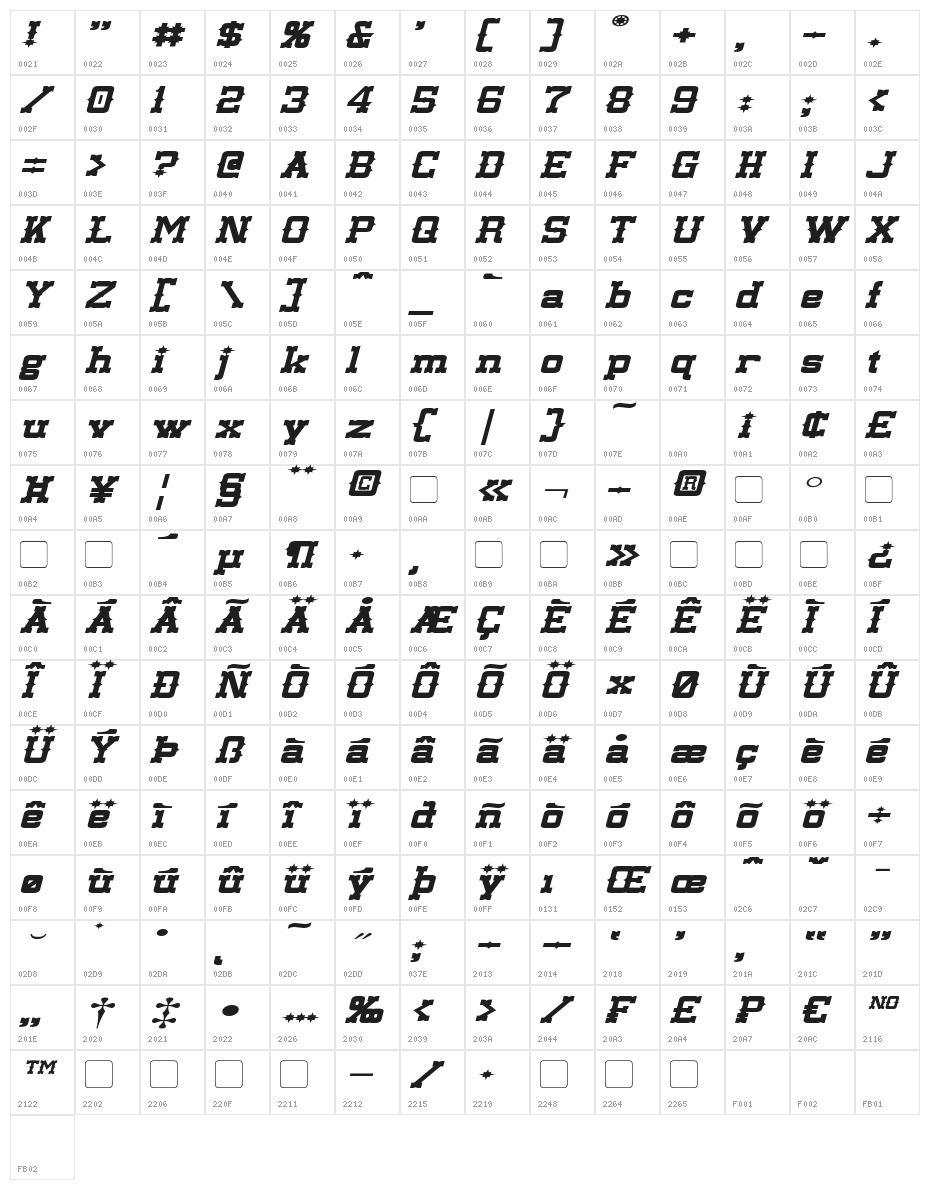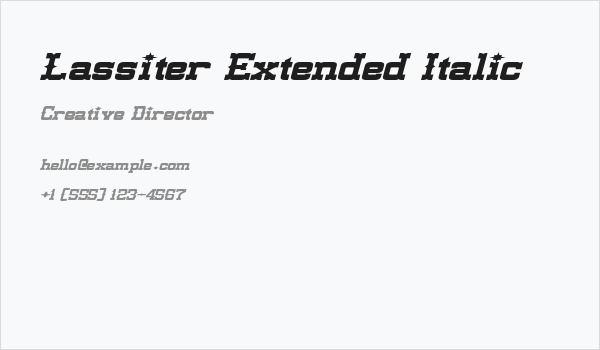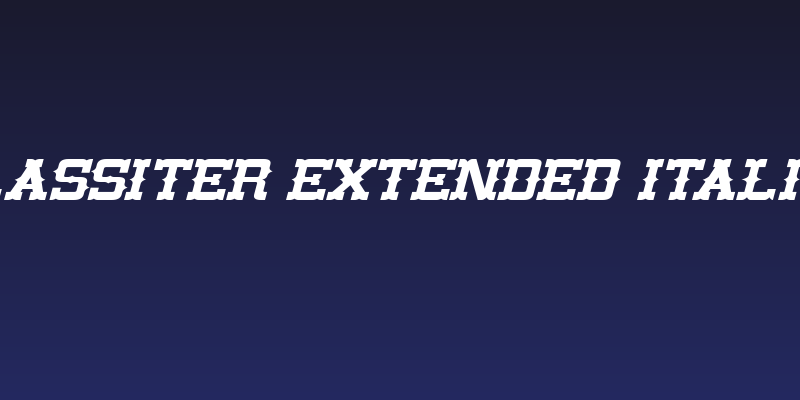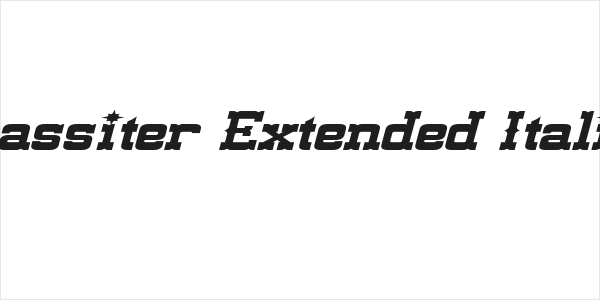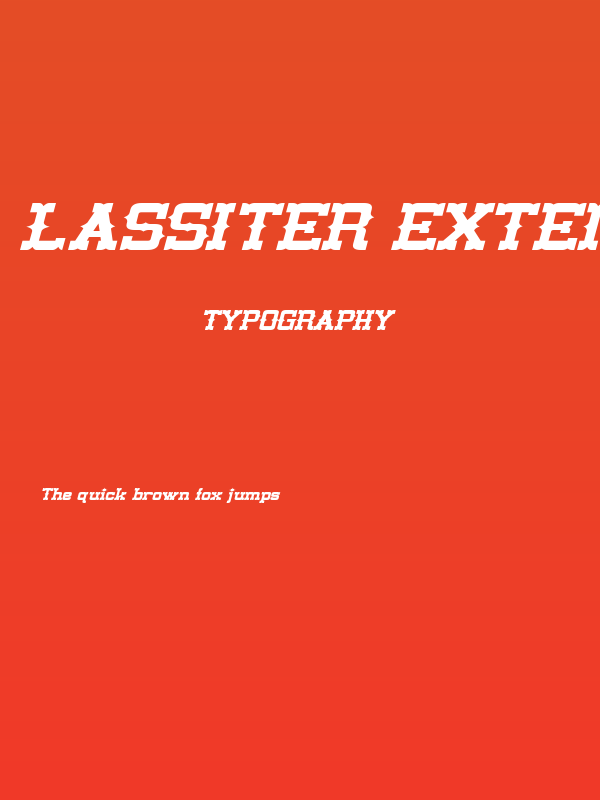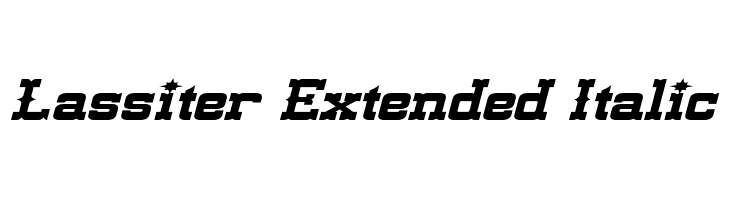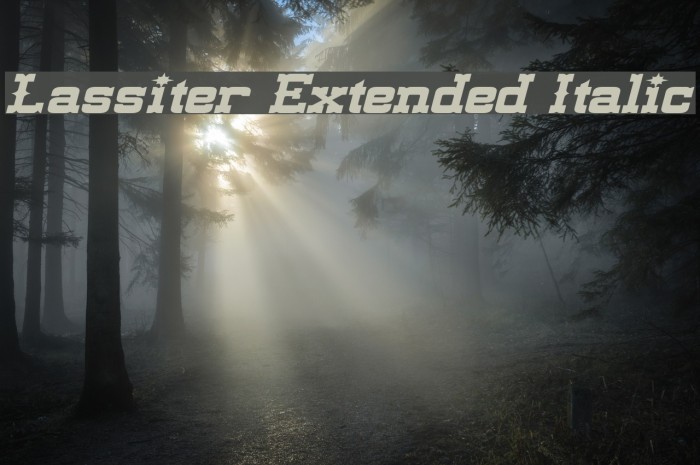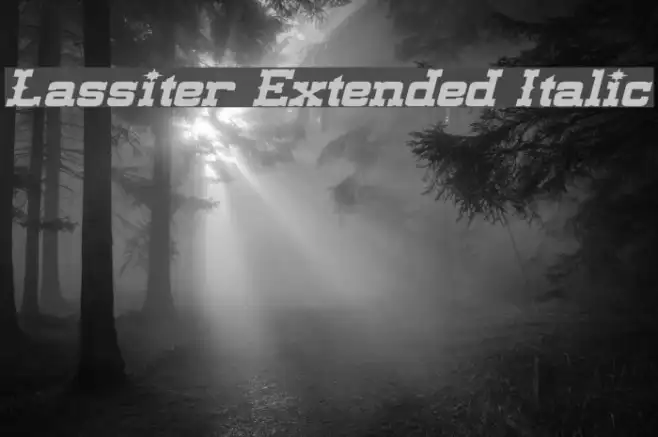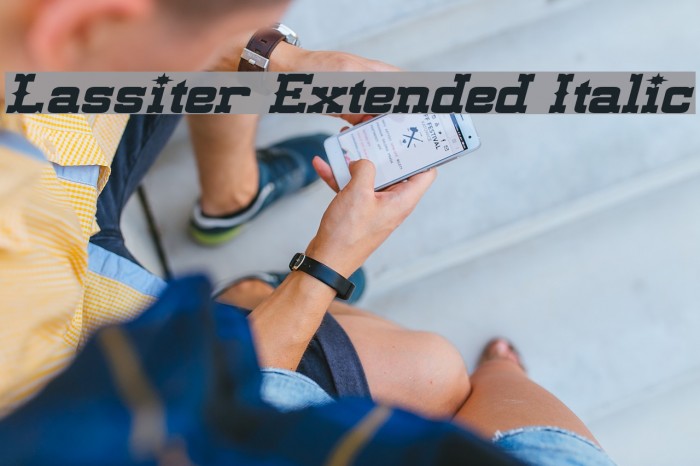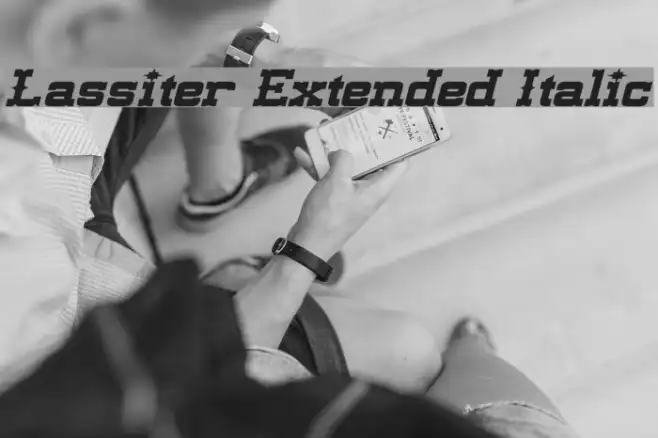
Lassiter Extended Italic Font
| Projets proposés | Ideal for use in sports branding, action movie posters, or any project needing a bold, energetic typeface. |